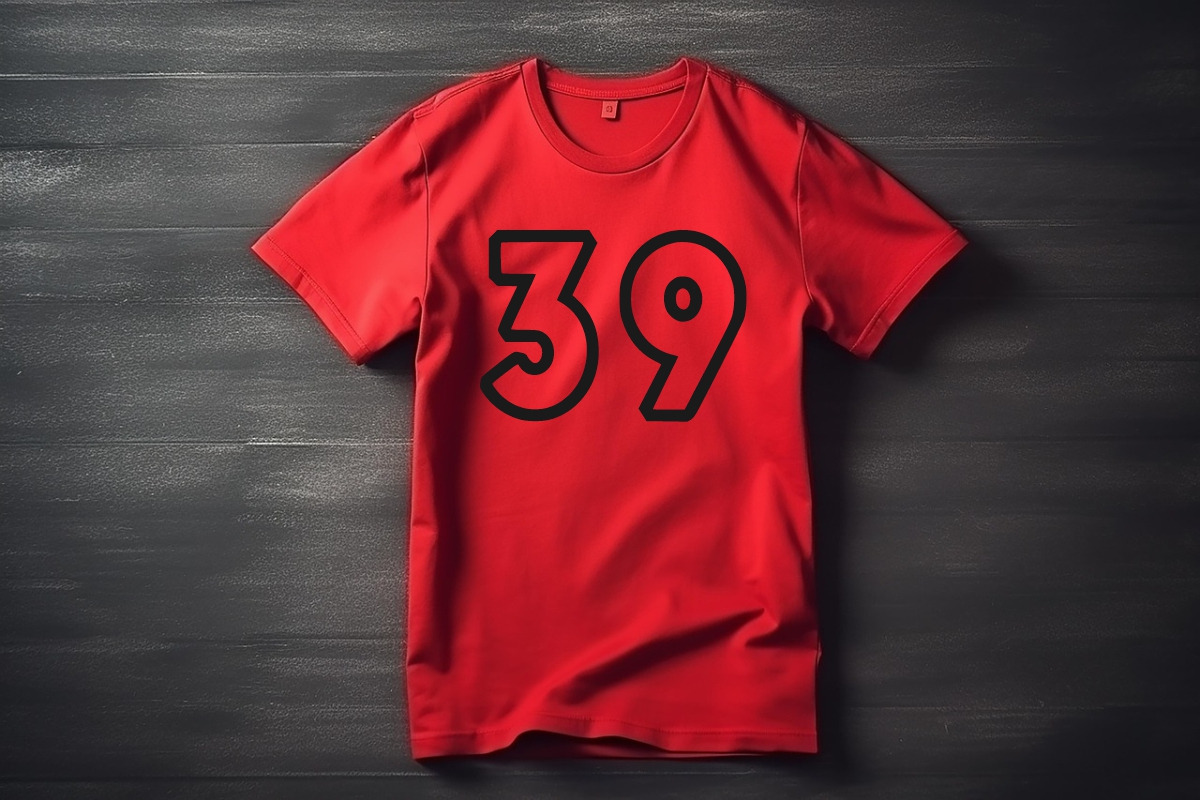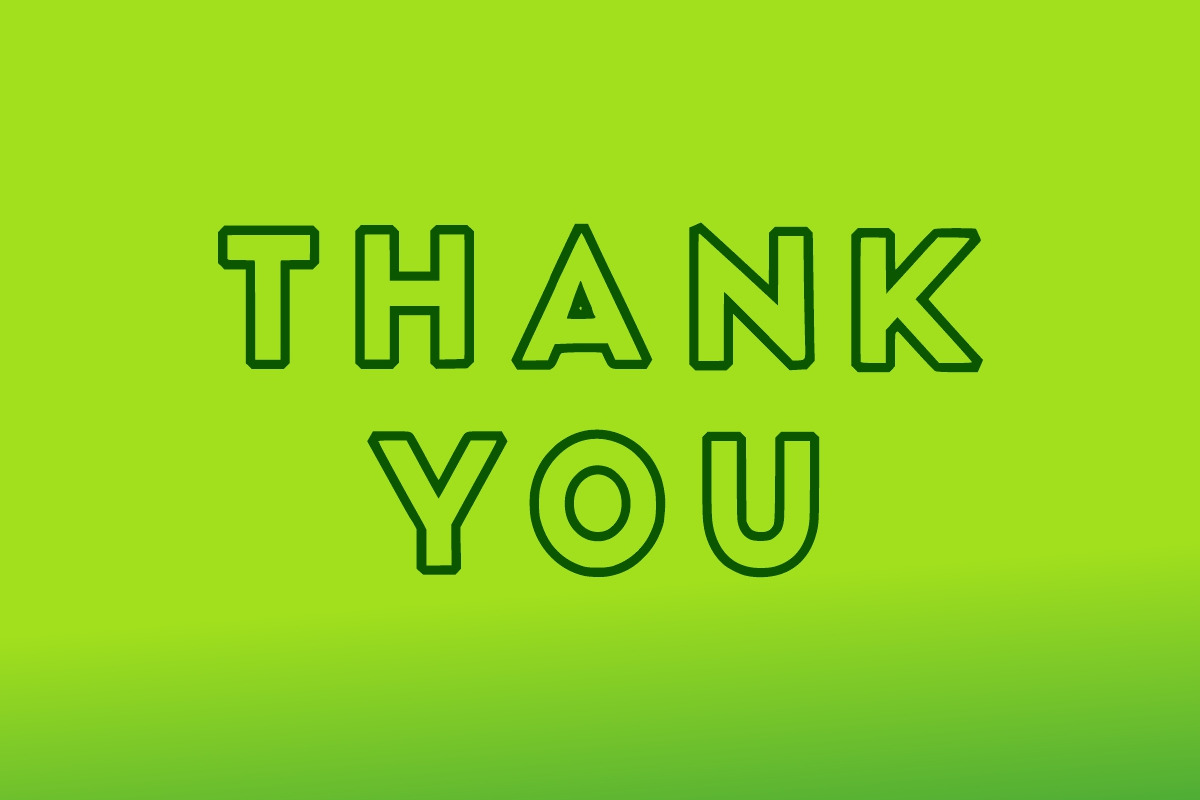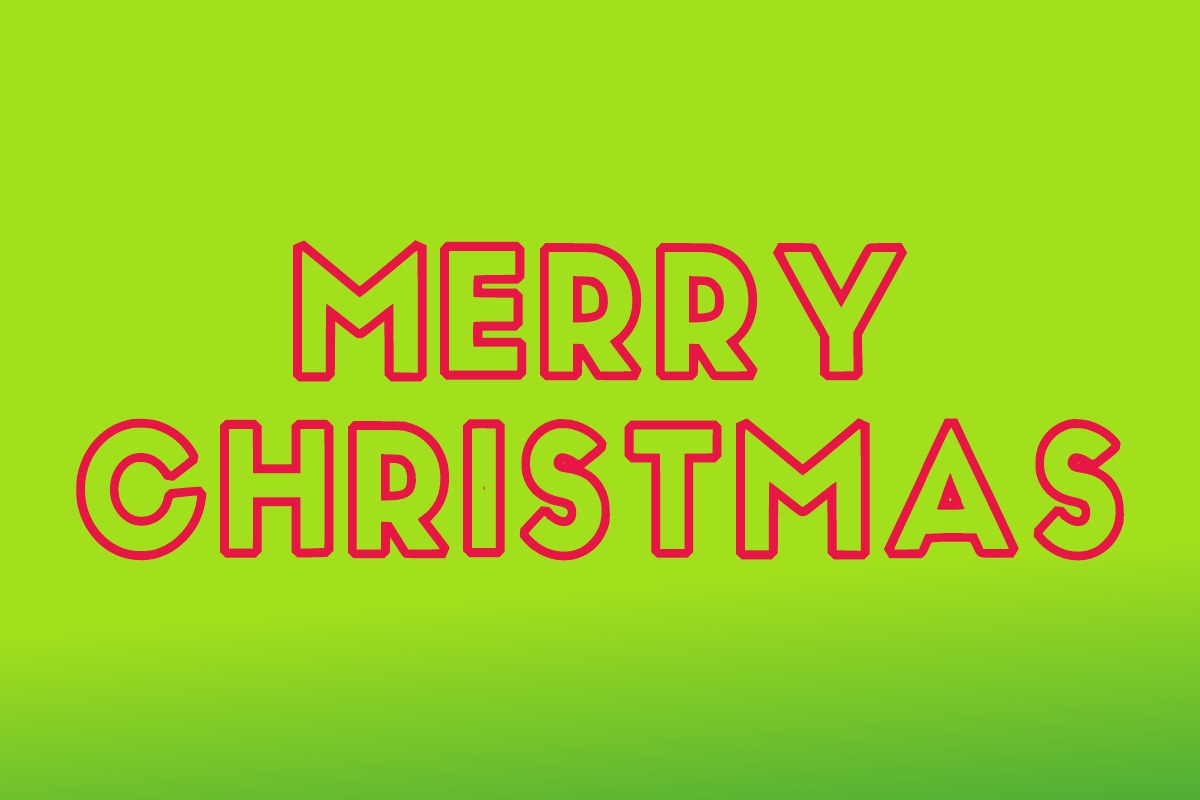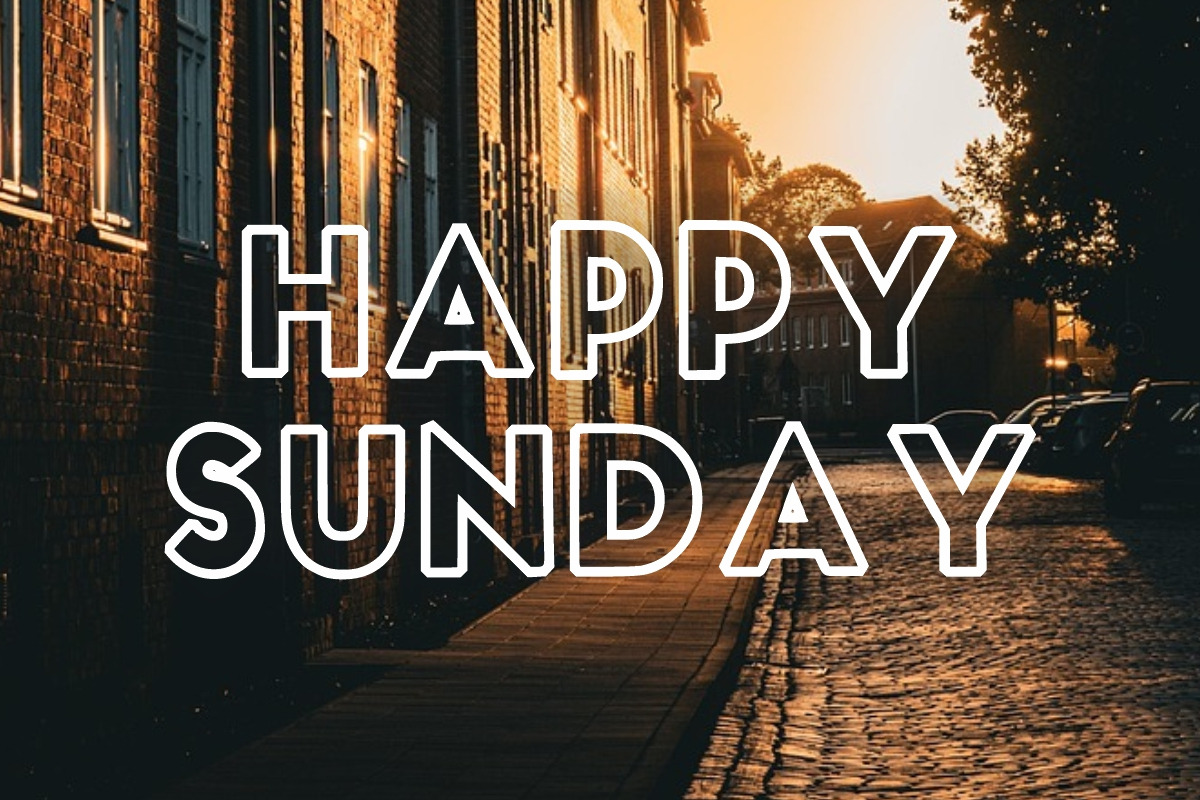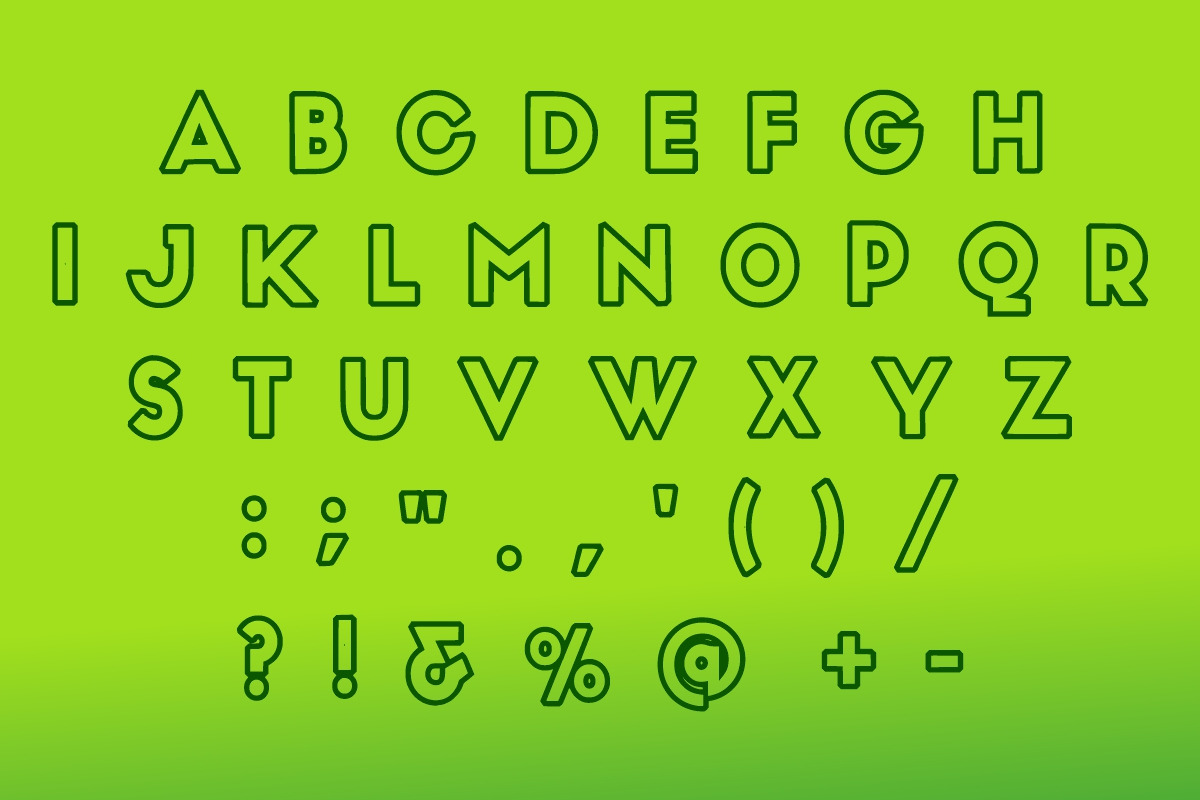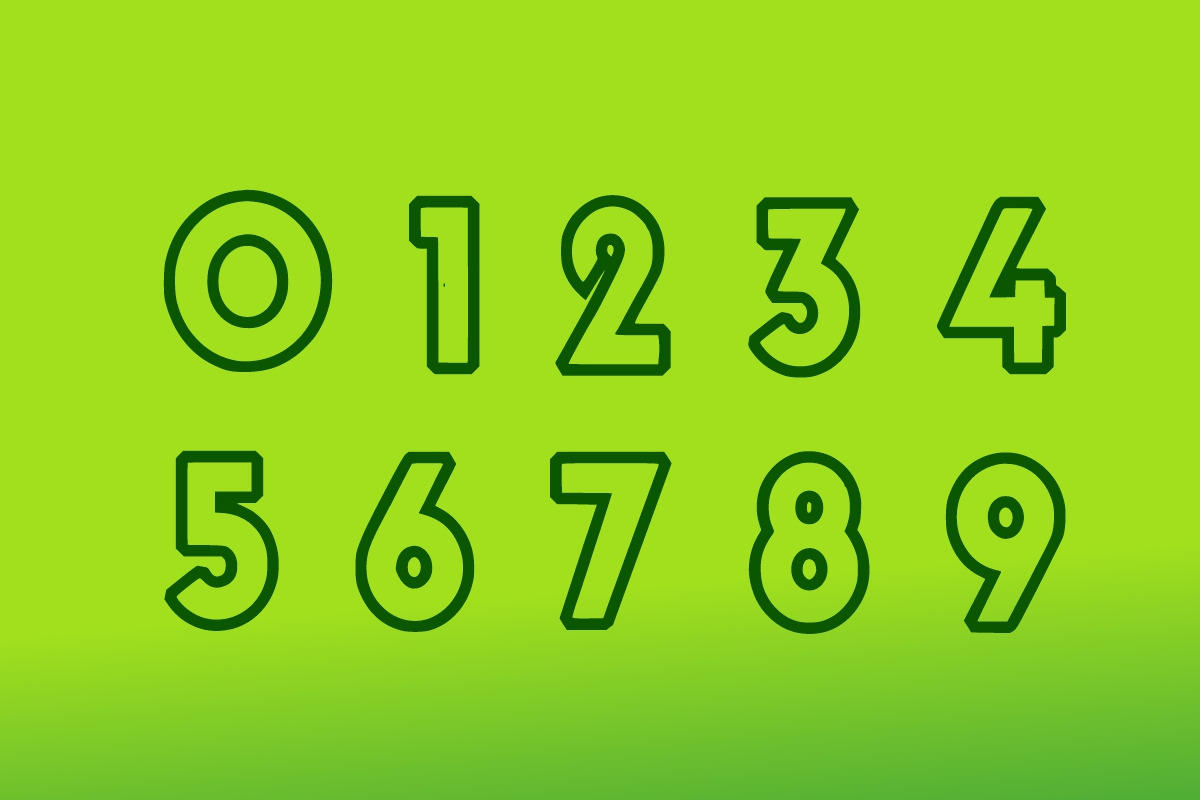
Grinch Outline
Grinch Outline is a fun and bold outline display font with rounded lettering. It is suitable for any winter and holiday branding project, product packaging, invitations, quotes, t-shirts, labels, posters, or anything that needs a touch of joy.